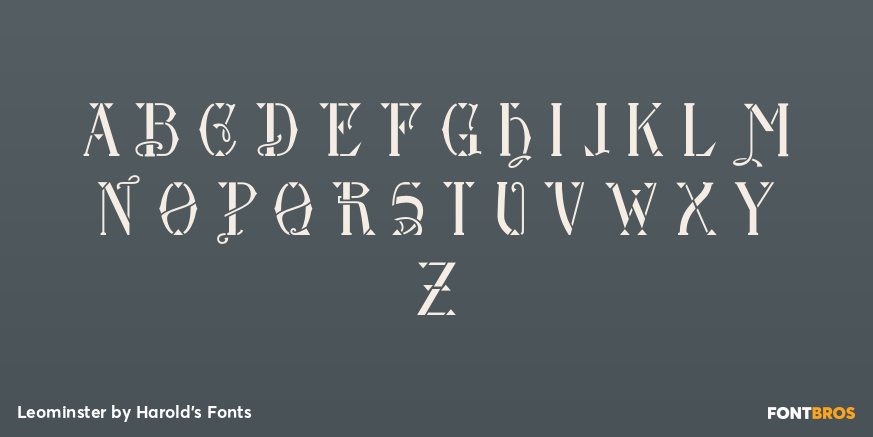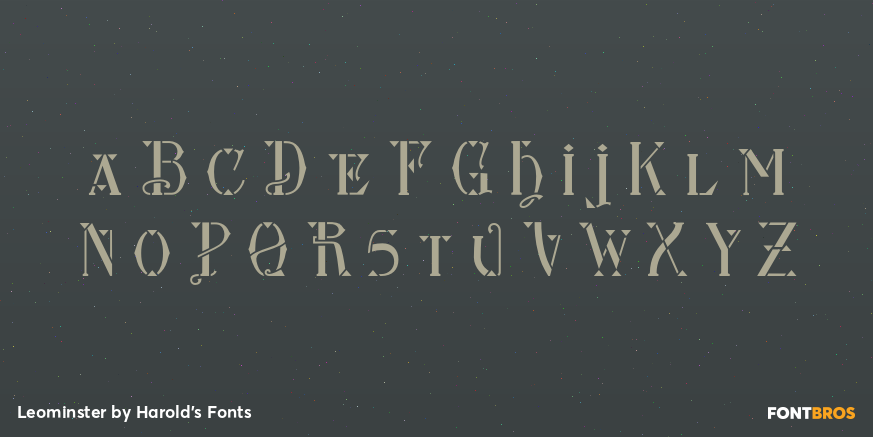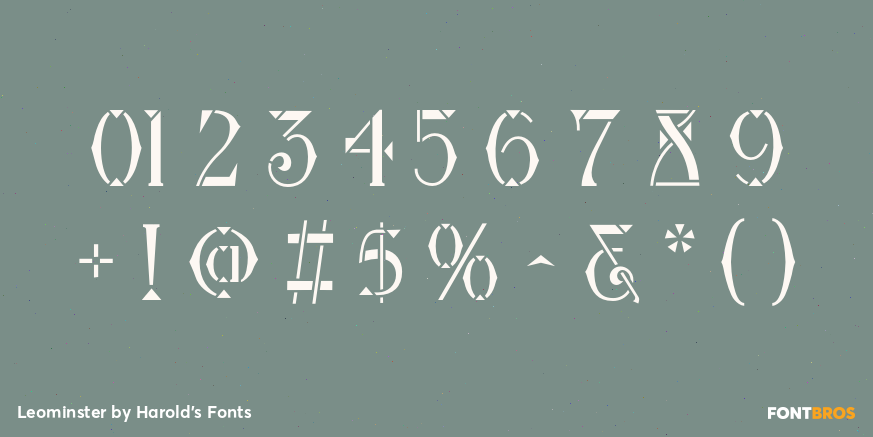
Leominster
Font Family by Harold's Fonts
LEOMINSTER is a graceful ornamented take on stencil style. Inspired by Edwardian design, LEOMINSTER makes a virtue of the requirements of stencils. Here the “bridges” required by the stencil process add a sparkle and the triangular serif “islands” are like decorative gems. I’ve included shorter versions of many letters for more flexibility and variety.